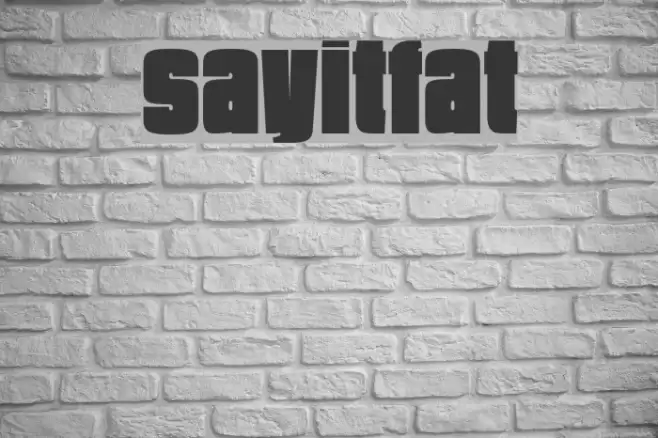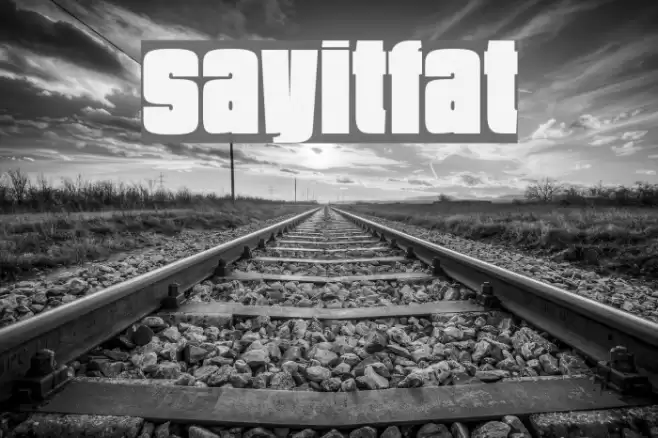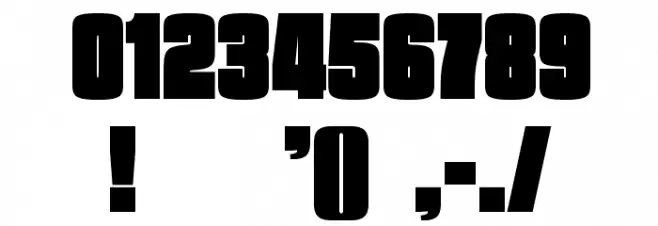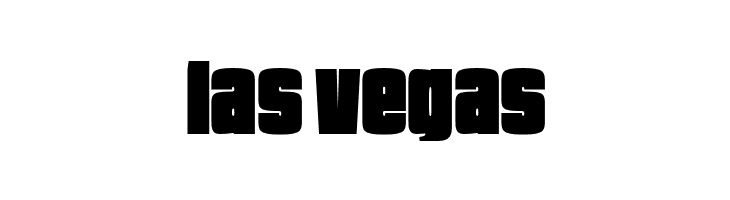
SayItFat Font
SayItFat Description
This font is characterized by its bold and impactful presence, featuring thick, block-like letters that command attention. The uppercase and lowercase letters maintain a consistent weight, creating a uniform appearance across the alphabet. The numerals and special characters are equally robust, ensuring legibility and prominence. The overall design is straightforward and powerful, making it suitable for projects that require a strong visual impact. The font's heavy weight and solid structure make it ideal for headlines and titles where emphasis is needed.
A bold, impactful font with thick, block-like letters for strong visual presence from Uncategorized fonts.
- Proposed Projects: Ideal for posters, headlines, branding, and any design requiring a bold statement.